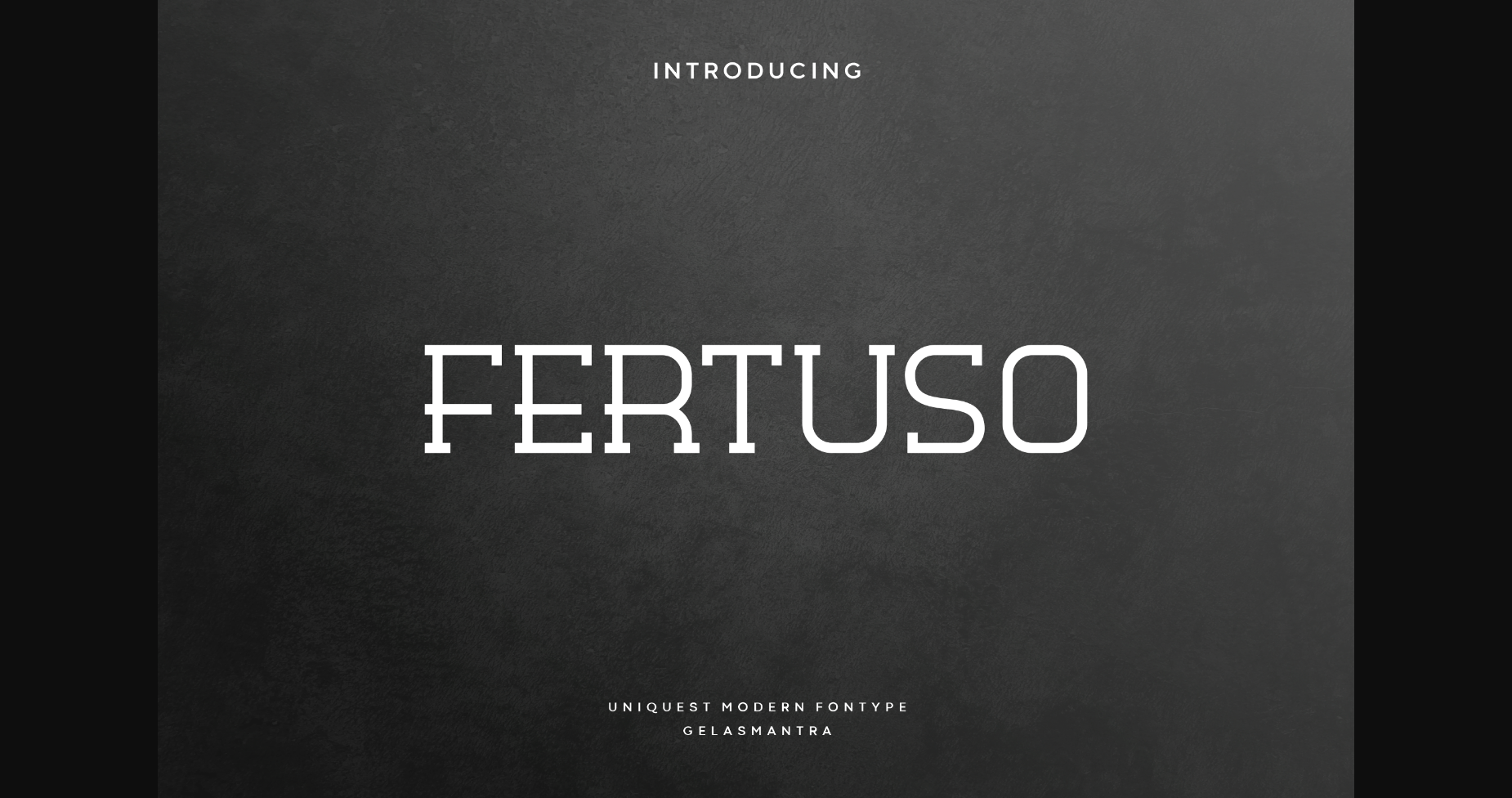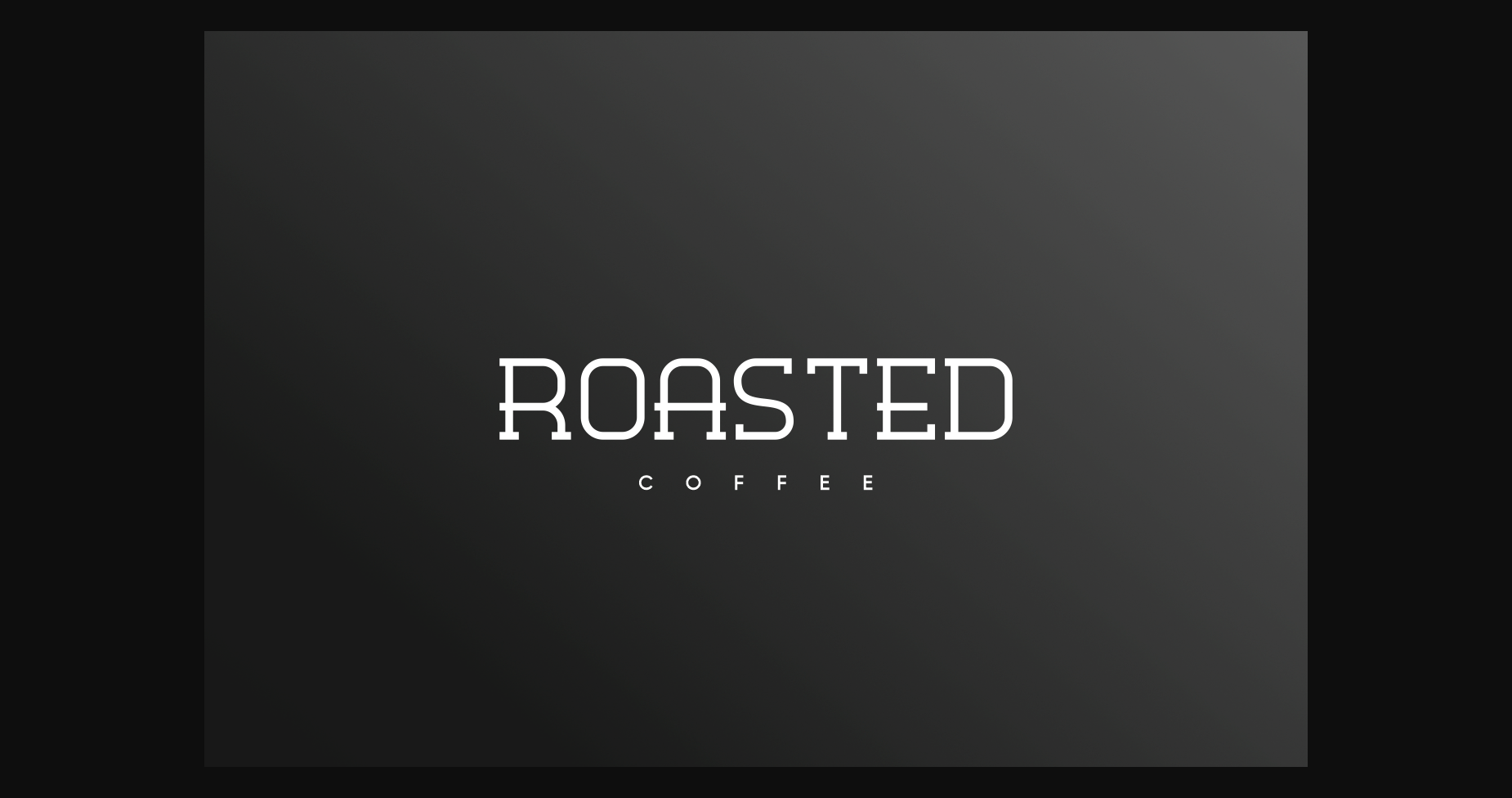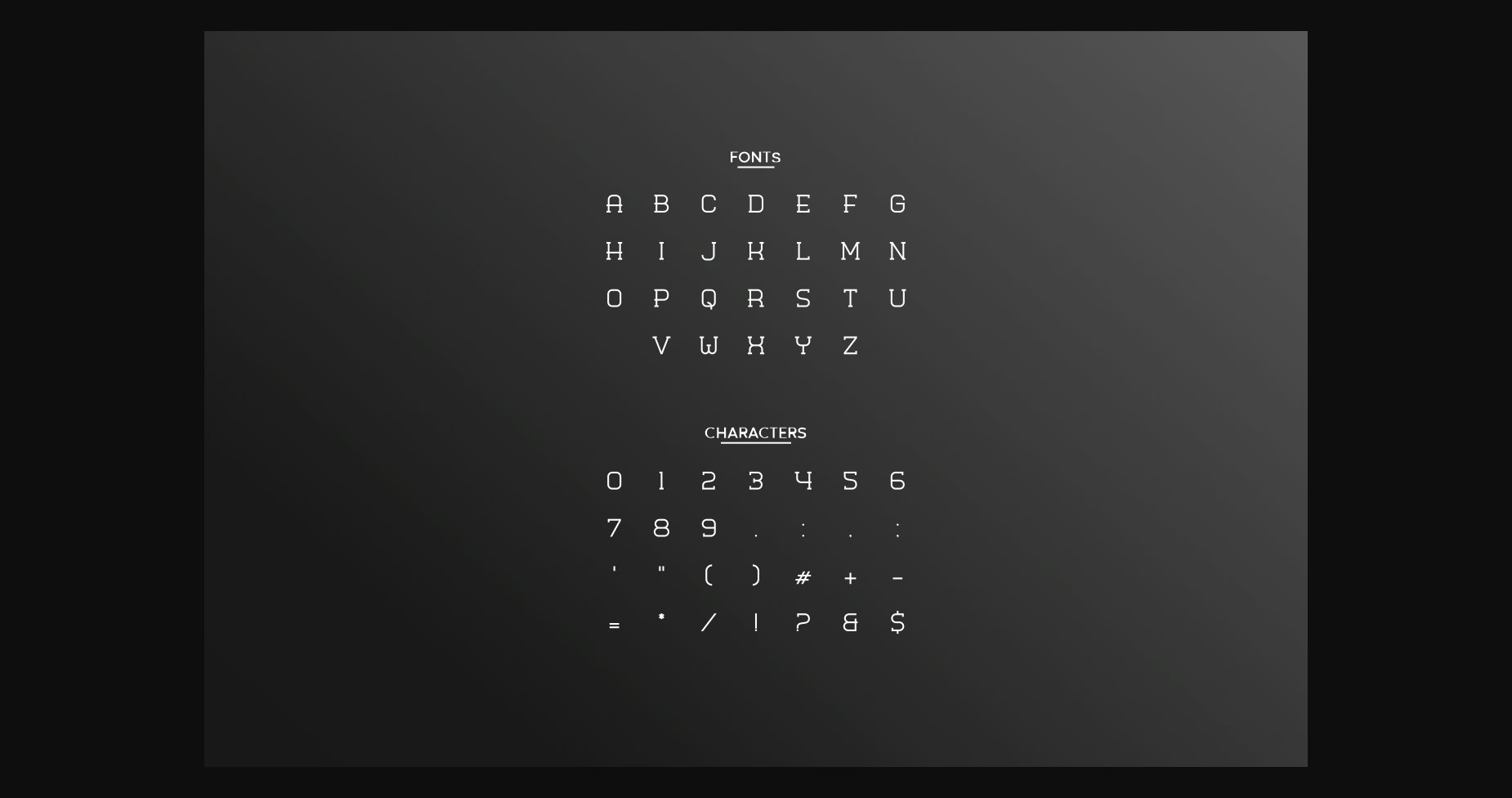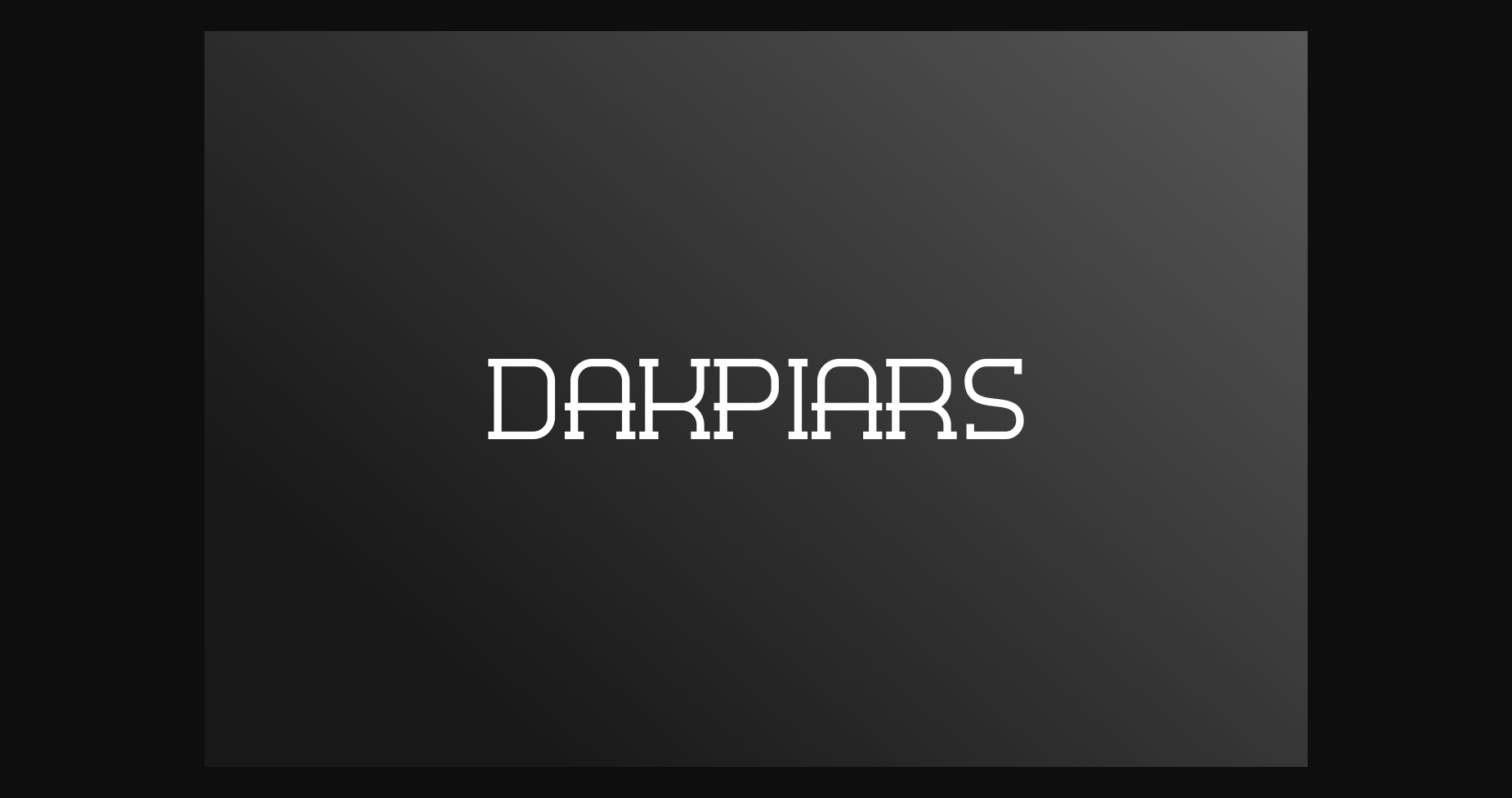
Fertuso Font
About Fertuso Font
Fertuso Vintage Sans is a handcrafted minimalist sans with a vintage vibe. You can use this font for any project. Perfect for logo branding, handwriting or clothing design. This font also supports various other designs, by utilizing your creativity you will get amazing results if you use this font.